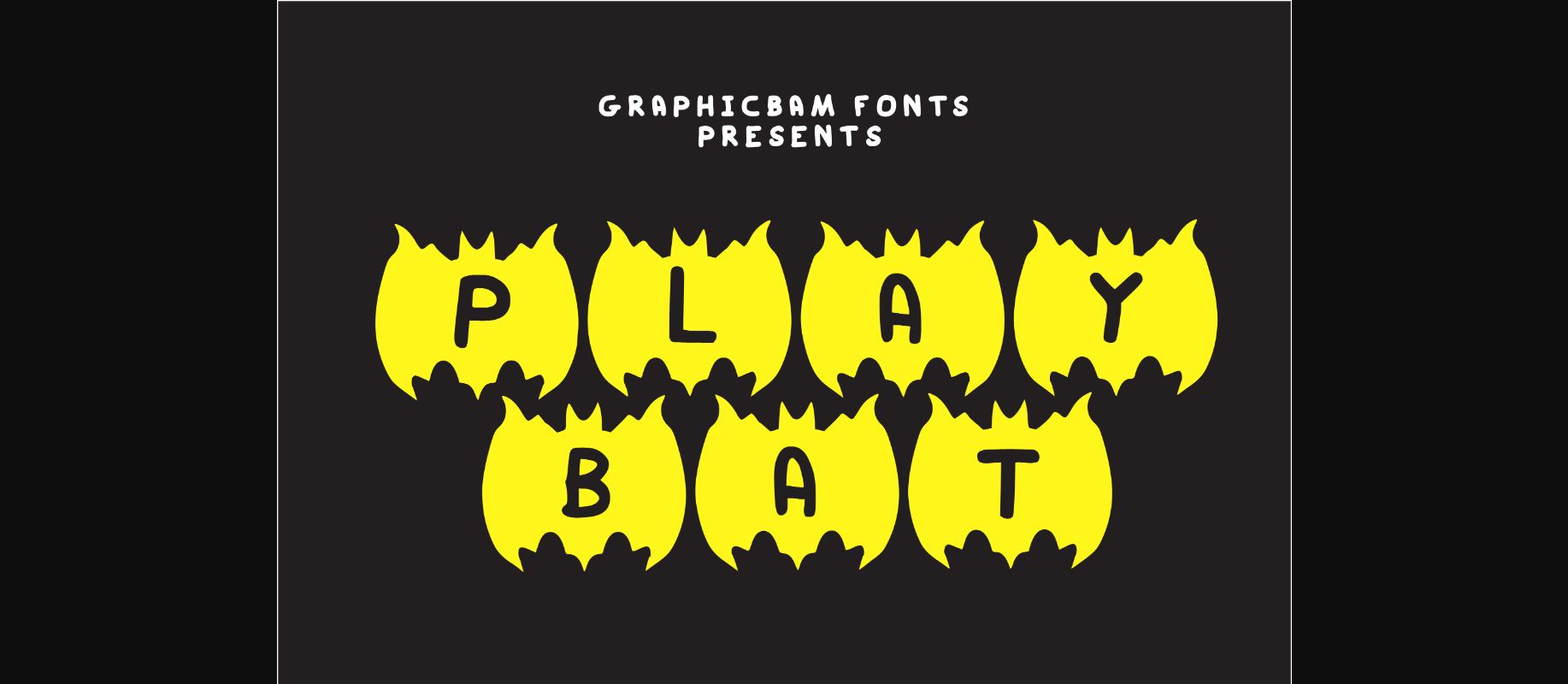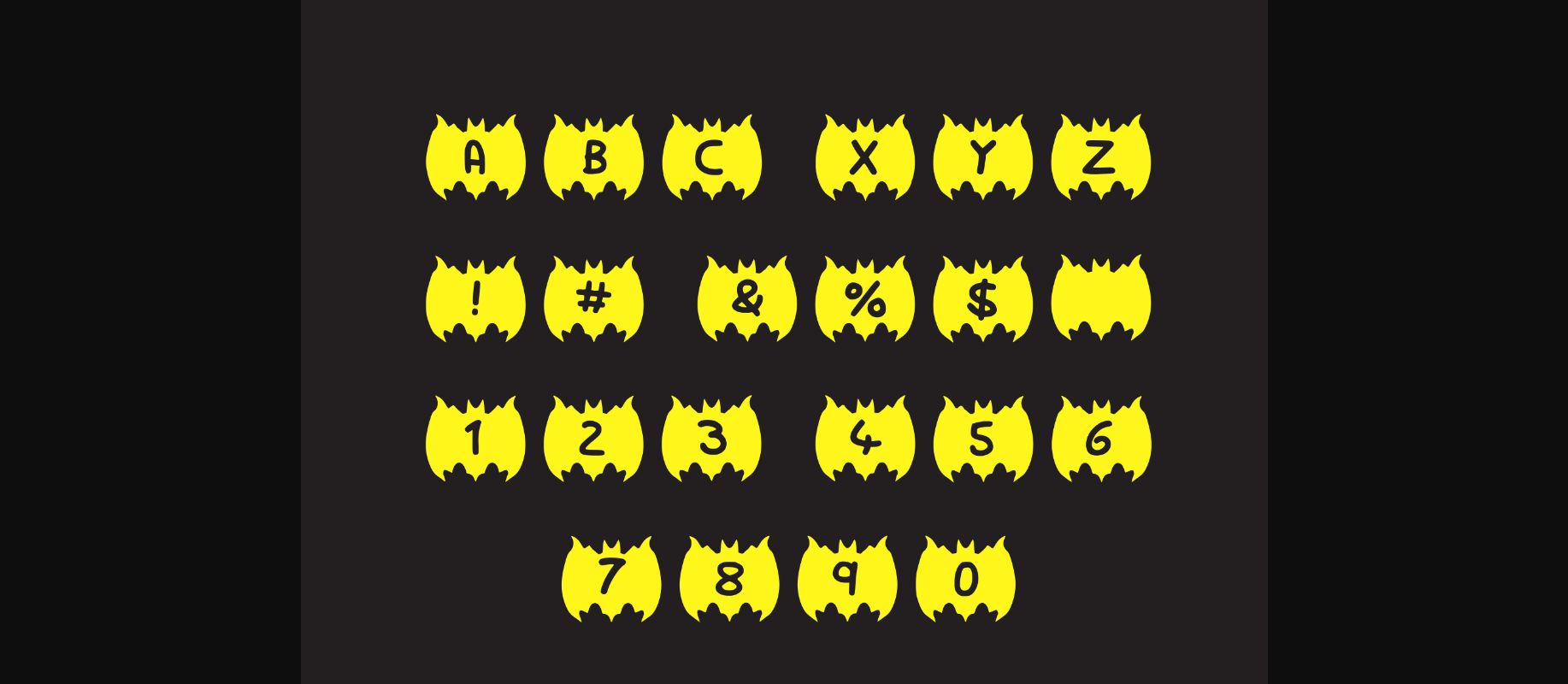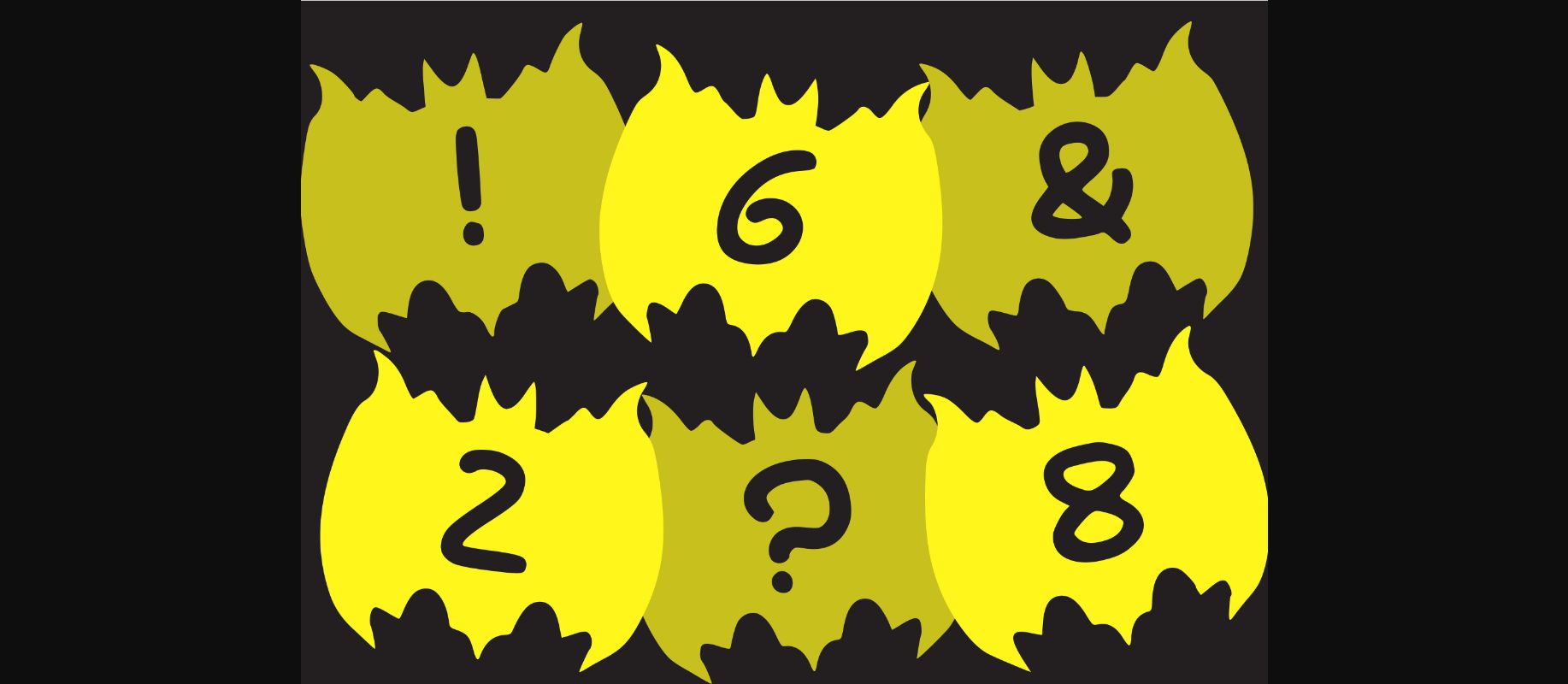
HomeDecorative FontsPlay Bat Font Decorative Fonts Play Bat Font FacebookXPinterestWhatsApp 1 of 5 ... Play Bat Font Poster 2... Play Bat Font Poster 3... Play Bat Font Poster 4... Play Bat Font Poster 5... About Play Bat Font Play Bat is a cool looking and interesting decorative font, featuring a bat on each character. No matter the topic, this font will be an incredible asset to your fonts’ library, as it has the potential to elevate any creation. DOWNLOAD NOW People also explored King of Sheep Font Bouffly Alice Extra Light Font Fatty Bright Font Melion Font Houstoner Font Daylight Font Raspberry Can Cooler Mockup Winstone Font Mens Asphalt Bella Canvas 3001 Mockup 395 0 TagsPlay Bat Font Previous articlePlay Austrilia FontNext articlePlay Big Hair Font LEAVE A REPLY Cancel reply Comment: Please enter your comment! Name:* Please enter your name here Email:* You have entered an incorrect email address! Please enter your email address here Website: Save my name, email, and website in this browser for the next time I comment. Personal Use Free Rafika Personal Use Free Read more about this font Xplor Personal Use Free Read more about this font Dead Block Personal Use Free Read more about this font Lumber Personal Use Free Read more about this font BLOG Free vs Paid Fonts: Why Investing in Premium Fonts Is Worth It Free vs Paid Fonts: Why Premium Fonts Are Worth It in 2025 The debate of free vs paid fonts continues in the design world. While... Where to Buy American Fonts Online in 2024 5 Fonts That Will Dominate Design Trends in 2026 Top 7 Google Fonts Alternatives for Faster and Privacy-Friendly Web Design (2025)